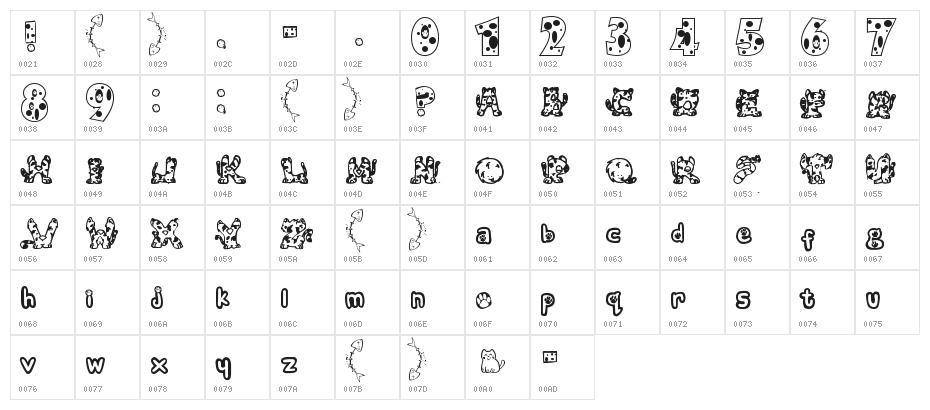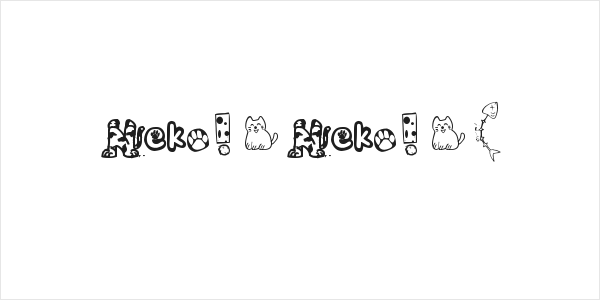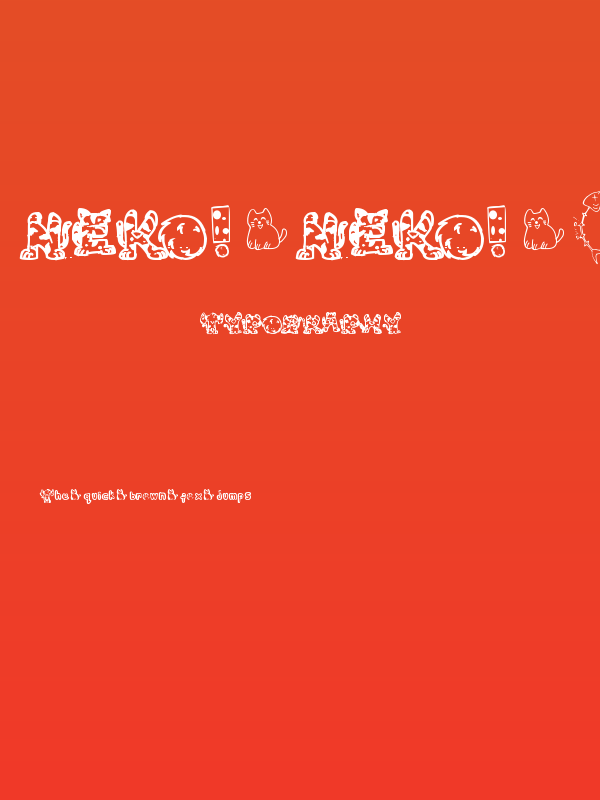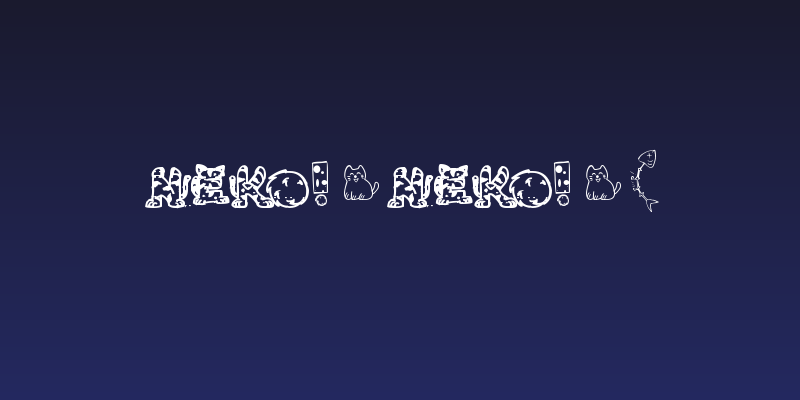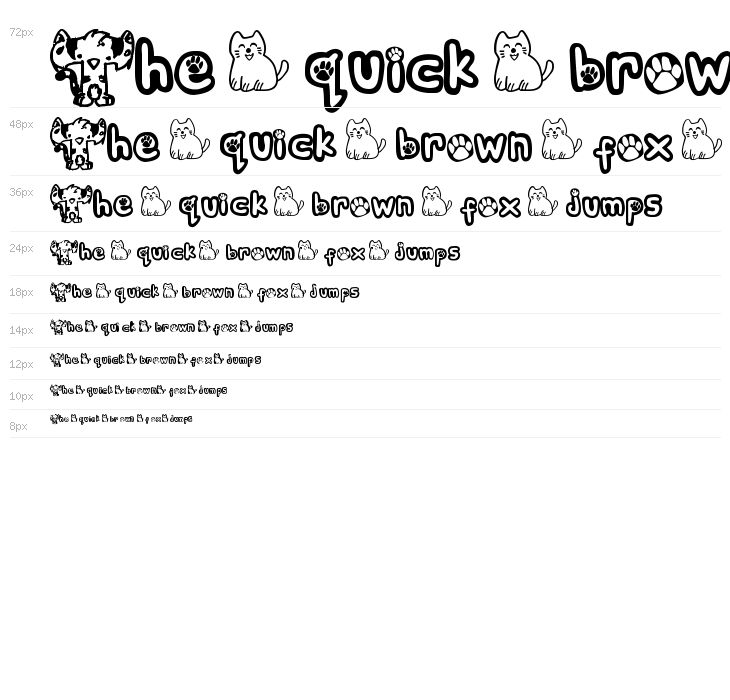
Neko! Neko! [ Font
Neko! Neko! [ Description
This playful and whimsical font features a unique design where each character is adorned with cat-themed elements, such as paws and spots, creating a fun and engaging visual experience. The uppercase letters are filled with intricate patterns, while the lowercase letters maintain a bold outline with paw prints inside. The numbers also follow this theme, incorporating playful spots and paws. This font is perfect for projects that require a lighthearted and creative touch, appealing to cat lovers and those seeking a distinctive style. The special characters continue the theme, ensuring consistency throughout any text.
| Overall Style | Whimsical |
| Use Case | Headlines, Logos, Themed Designs |
| Proposed Projects | Ideal for children's books, pet-related branding, playful invitations, and themed merchandise. |